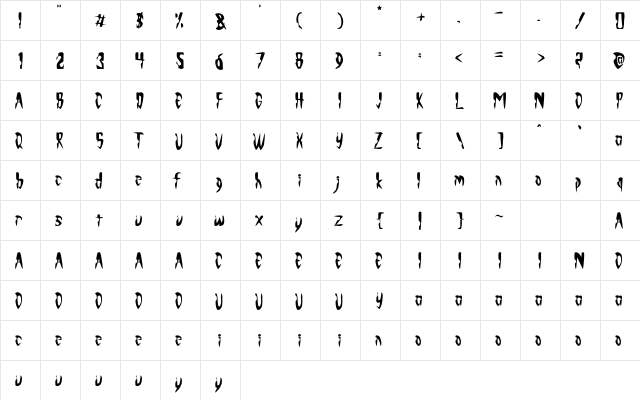
Monsterious Regular
| Foundry | Rometheme Studio |
| Designer | Rometheme Studio |
Design Context for Monsterious Typeface
Monsterious is a composed and adaptable typeface that performs quietly and consistently across a wide range of design contexts.